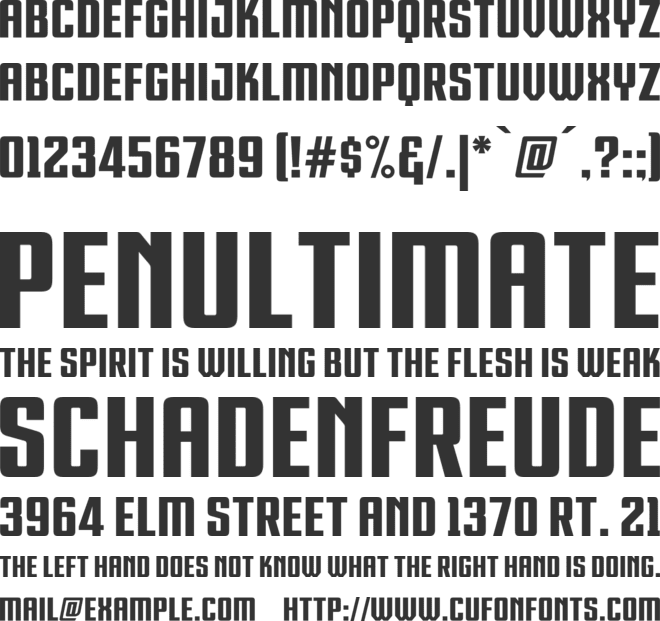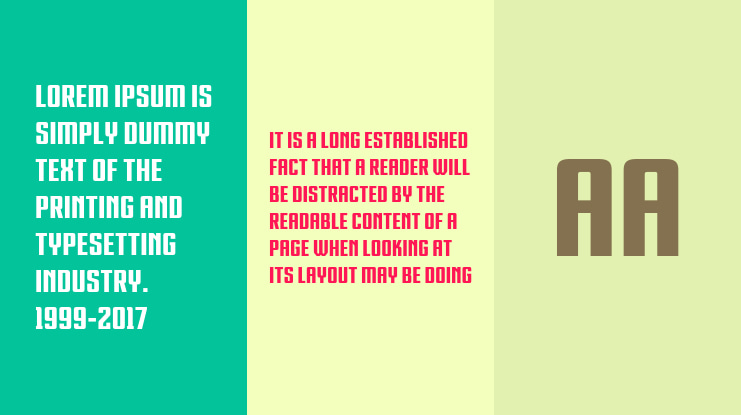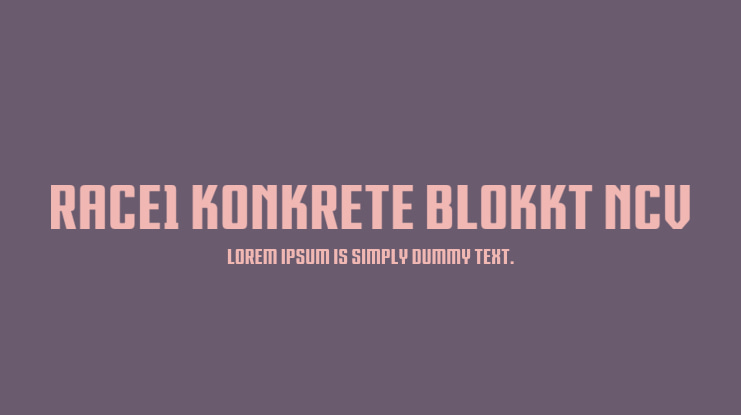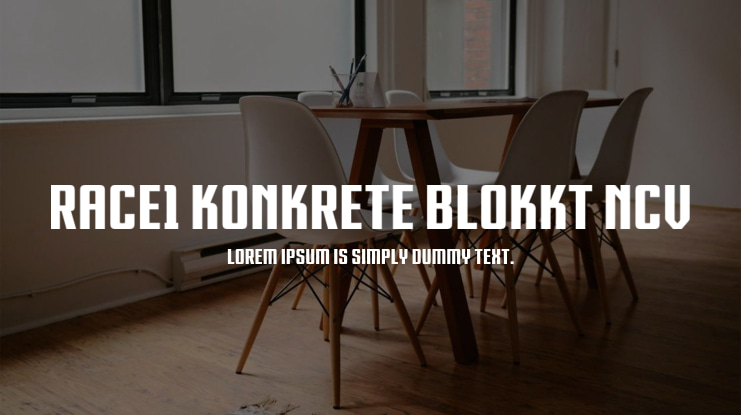
RACE1 KONKRETE BLOKKT NCV Font Family
RACE1 KONKRETE NCV by The Fontry
RACE1 KONKRETE FAMILY is a classic gothic narrow in three stances. Okay, one of the stances isn't so narrow, and one version is a full-blown convex font that can be layered to produce a 3-D effect. With the commercial version of RACE1 KONKRETE, users can create true convex lettering by simply duplicating the font atop itself and strategically selecting normal, bold, italic, and bold italic from their design program's style menu.